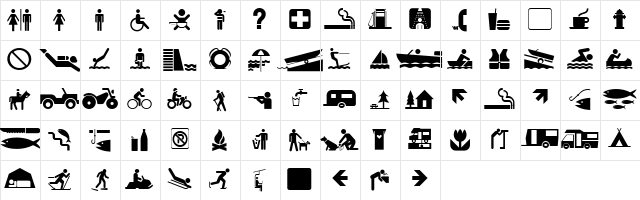
Glyphyx Two NF Regular
Design Context for Glyphyx Two NF Typeface
Glyphyx Two NF is a composed and adaptable typeface that performs quietly and consistently across a wide range of design contexts.